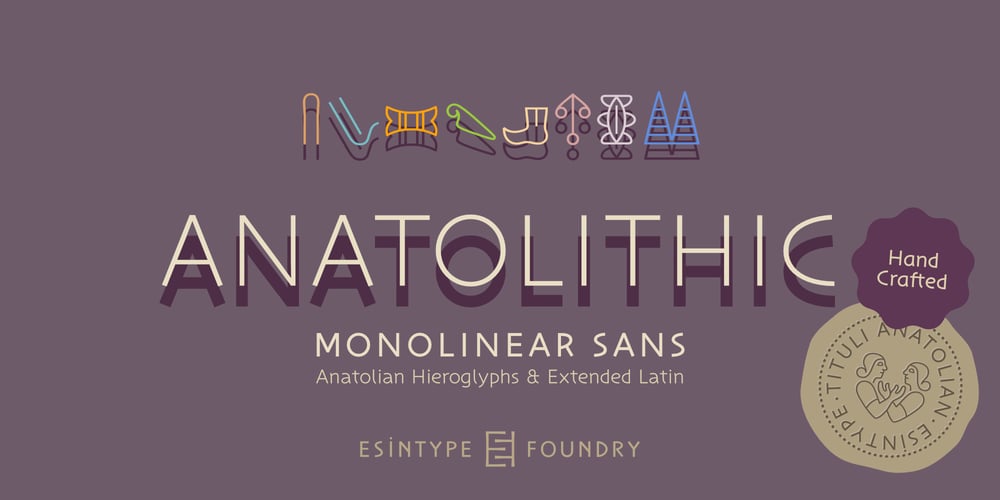
Anatolithic Font Family was designed by Ali Riza Esin and published by Esintype. Anatolithic contains 12 styles and family package options. Anatolithic is the complete and up-to-date version of the Anatolian Hieroglyphs and a monolinear sans typeface inspired by inscriptional letterforms of Anatolia’s multilingual past, said to represent the roots of Indo-European languages. The Latin script part acting as a companion to the Anatolian Hieroglyphs, and vice versa.Anatolithic takes its name from the stone artifacts of Anatolia’s pre-Classical antiquity. Like ‘paleolithic’, it is derived from the Greek lithikos, meaning “of or pertaining to stone”. The term stone in this context refers to a substantial corpus of inscriptions, while the prefix of the noun indicates the origin.Anatolithic has two concepts, each with its own glyph sets:‘Anatolithic Base’ consists of the essential 583 glyphs, which are recognized as the complete Anatolian Hieroglyphs sign repertoire.On the other hand, ‘Anatolithic’ contains 649 Anatolian Hieroglyphs among over 1200 glyphs, including additional signs as character variants and stylistic alternates. Guided by the cornerstone works of the field, additional forms derived from significant inscriptions and previously overlooked variants have been implemented as OpenType features.Exclusively for Anatolithic, this concept features an extended Latin script set with a limited number of pseudo-hieroglyphic character alternates that could be considered for use as optional letterforms.The contrast between the two scripts through the blending of certain characters makes Anatolithic a distinctive title alternative. Certain vowels are interchangeable between Latin and pseudo-hieroglyphic forms in all-caps typesetting. Those characters represent the vowels found in the nouns Anatolia / Anatolithic.In addition to being a multiscript font, Anatolithic has an inscribed appearance that can be characterized by its uniform strokes, angled terminals, clean geometry, and large x-Height features. It has OpenType features such as small numbers, fractions, case-sensitive forms, ligatures, and more.The character repertoire of Anatolian Hieroglyphs is based on Unicode tables originally adopted from Laroche’s catalog and subsequent publications. All signs in the Unicode block have been redrawn, in concordance with numerous sources, including on-site observations, corpus and recent studies, drawings and photographs.Reference fonts have been re-examined, resulting in a number of improvements and refinements. In cases, the double-line drawing technique, used for archaeological documentation and merely shows the outline of the relief forms, has been reduced to a single line, as observed in late period inscriptions. In certain instances, the iconography has been enhanced by eliminating stylistic subjectivity.Further details about Anatolian Hieroglyphs, bibliography, our research and the story of its production can be found on our foundry website; esintype.com.Monolinear Sans Anatolithic is available in seven multiplexed weights ranging from thin to bold, while all hieroglyphic ‘Anatolithic Base’ is offered in five weights with a carefully crafted grades.The style of the Latin script in harmony with the modern humanist forms reflects the characteristics of a perennial look and can be used for a wide range of typesetting purposes.